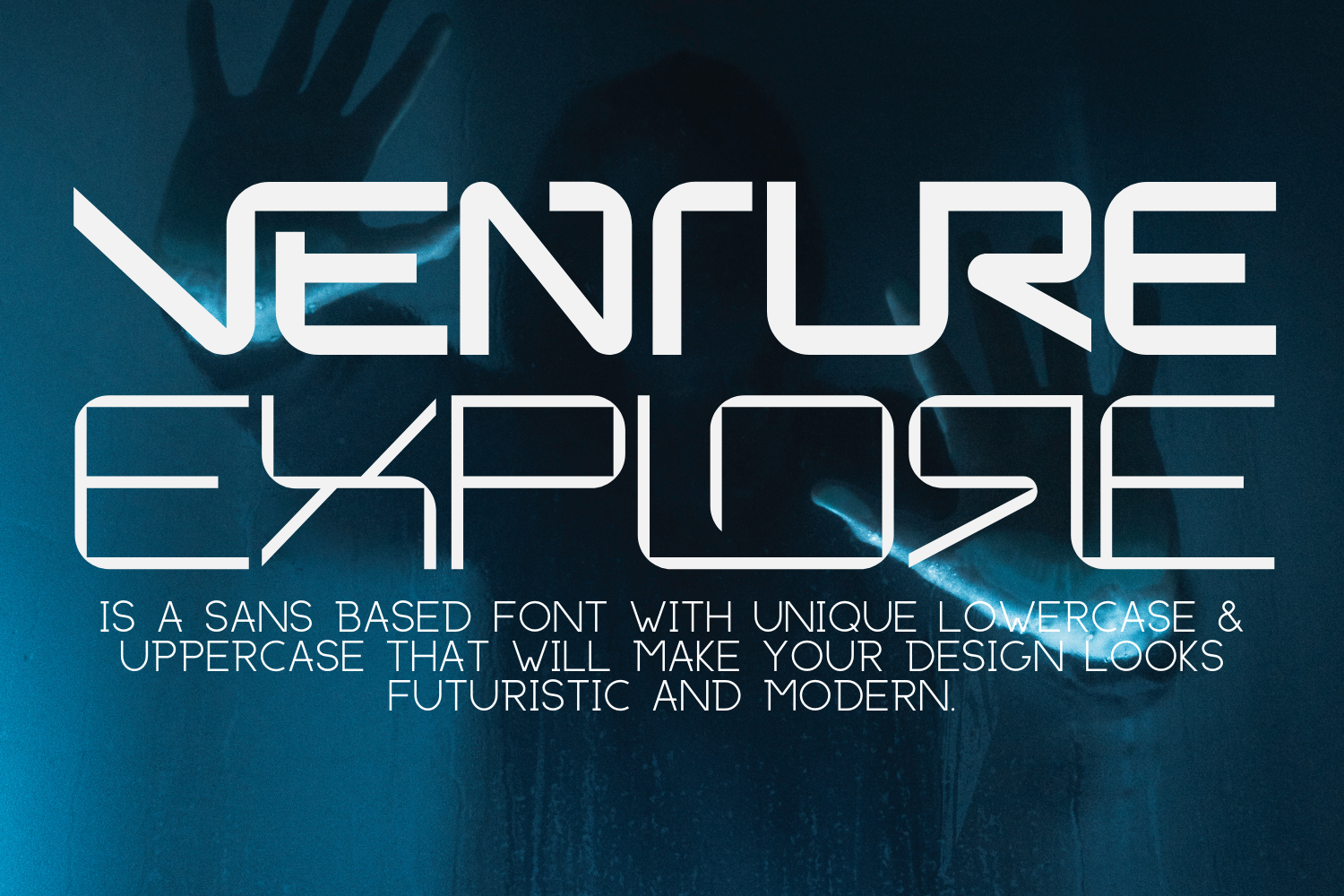
Venture Explore Font
Venture Explore Font is a modern, elegant and futuristic display font. It's a modern display font with an amazing futuristic feel, it’s thin shape makes it look luxurious and elegant. It's comes out with a unique style in all-caps which would be great for making space themed event poster, brochure, magazine, logo, headline or social media page cover, the design is minimalist yet futuristic so it will launch your designs into the stratosphere, this font will transform any creative idea becomes a true work of art.
Venture Explore was built with OpenType features and includes 100 ligatures, alternate, numbers, punctuation, and it also supports other languages.
AC AD AL AN AR AS AT AU AV BE CA CE CH CO CT DE DI EA EC ED EE EL EM EN EP ER ES ET FE FO FR GE HA HE HI HO IE IC IL IN IO IR IS IT JU KE LA LE LI LL LO LY MA ME MI NC ND NE NG NO NT NS OC OF OM ON OO OP OR OT OU OW PA PR RA RD RE RI RO RS RT SE SH SI SO SS ST TA TE TH TI TO TR TT UM UN UR VE WI WO
This font also included full set of:
- Special Ligatures